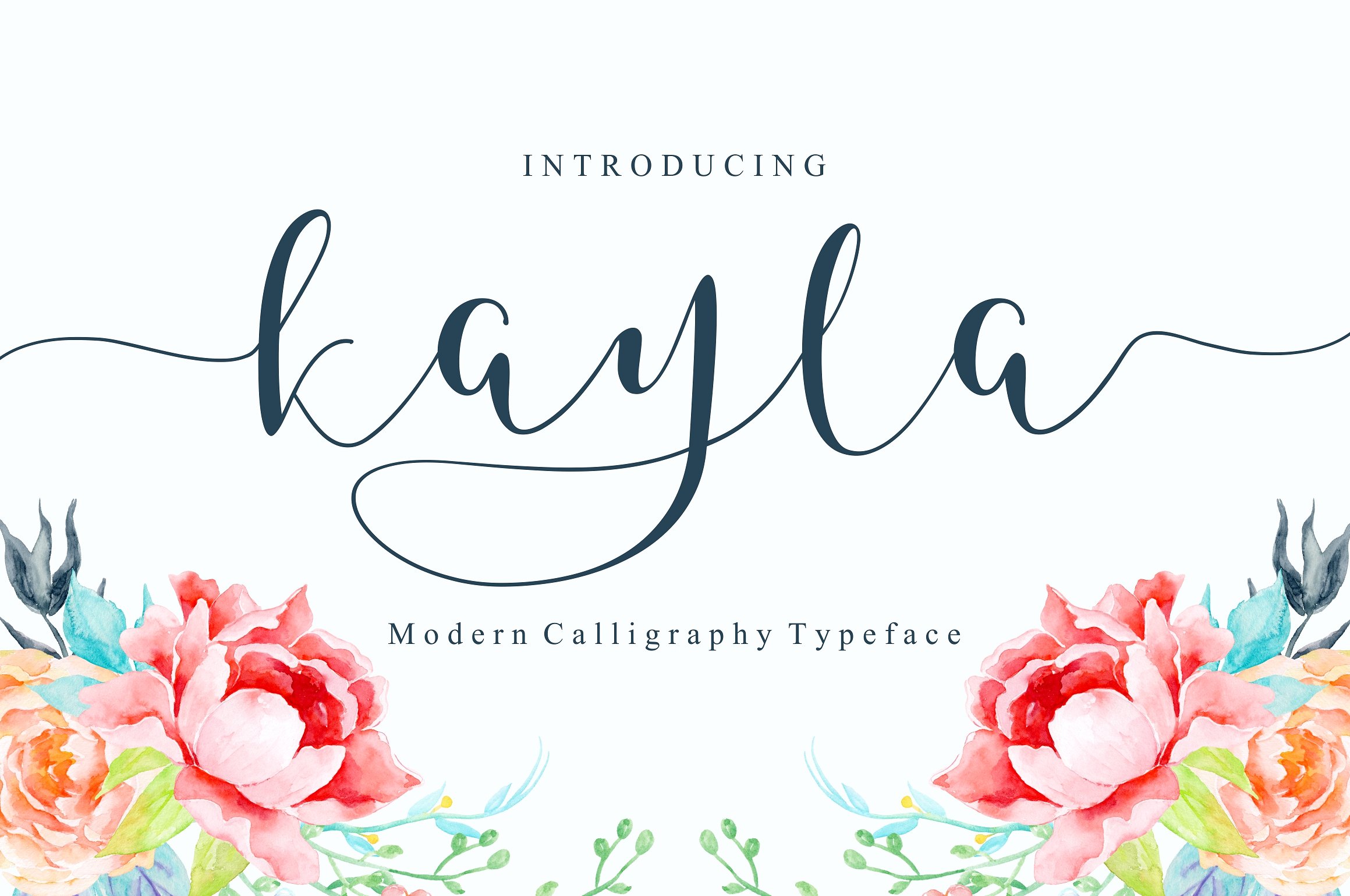
Introducing Kayla Script – a modern script with a sweet style calligraphy, decorative characters and a dancing baseline! So beautiful on invitation like greeting cards, logotype, branding materials, business cards, quotes, posters, and more!